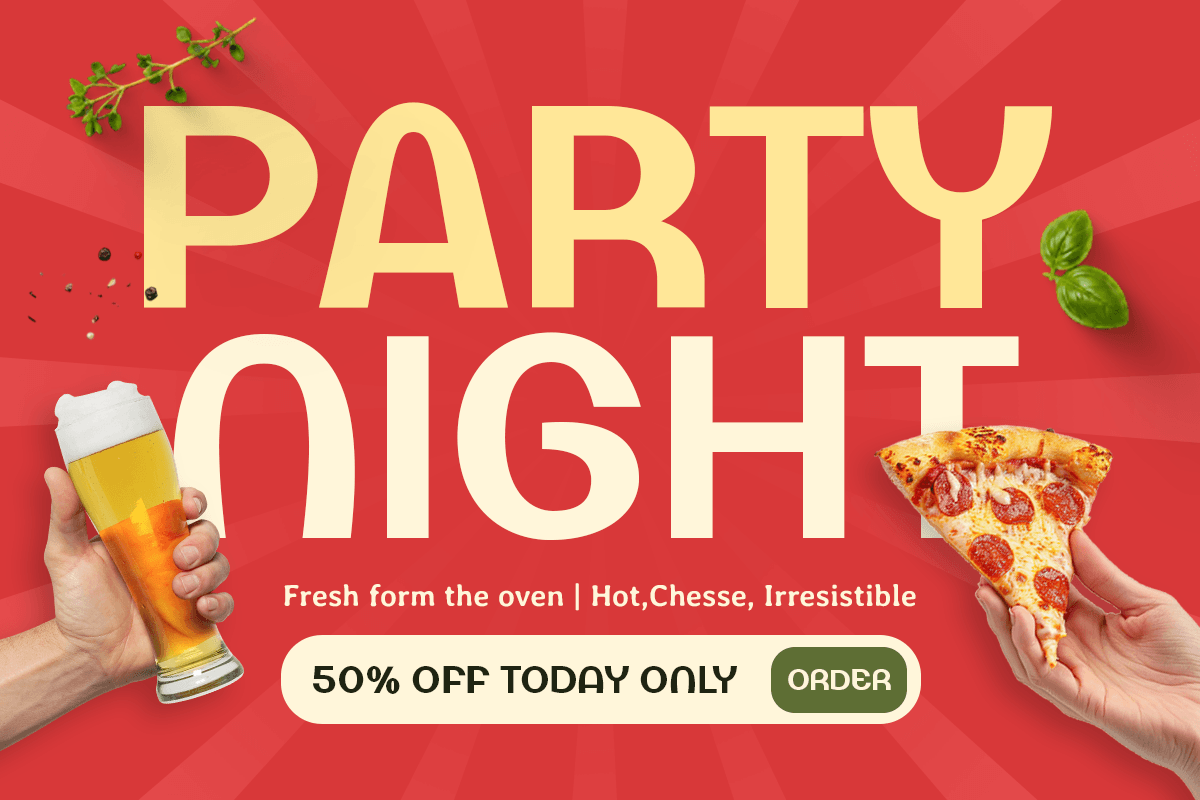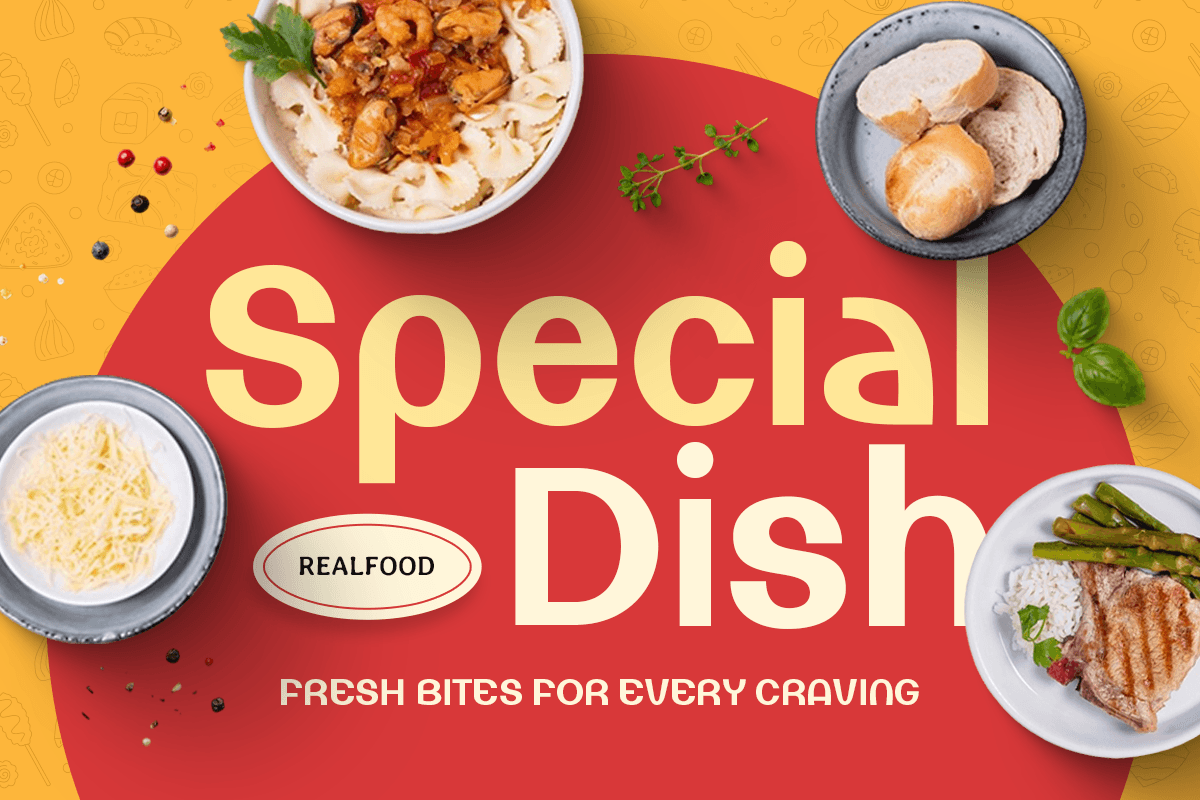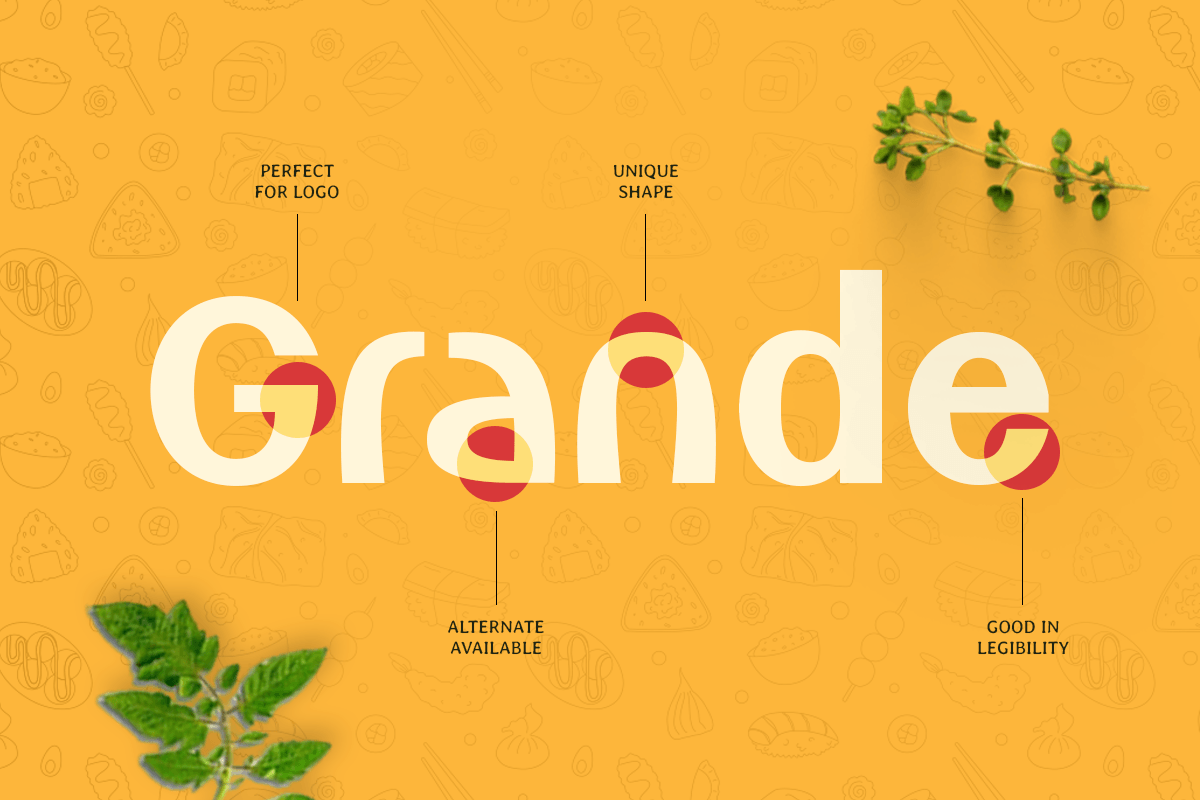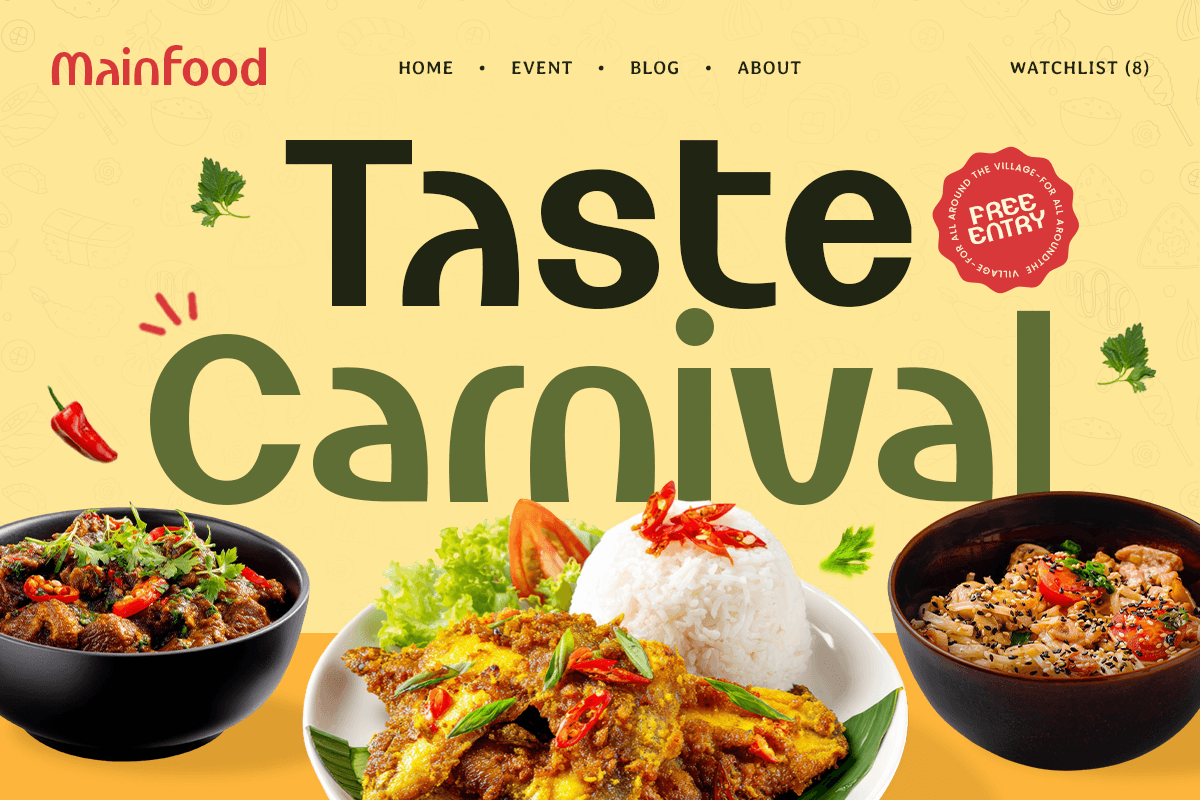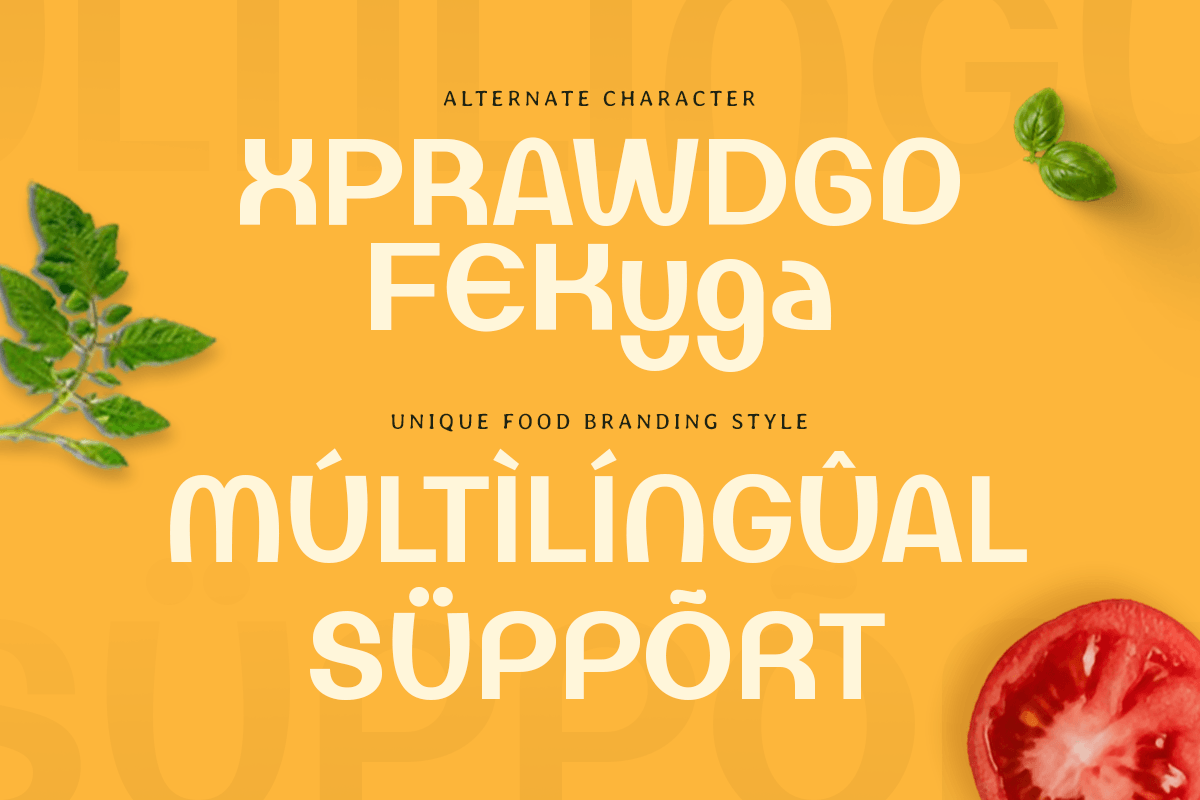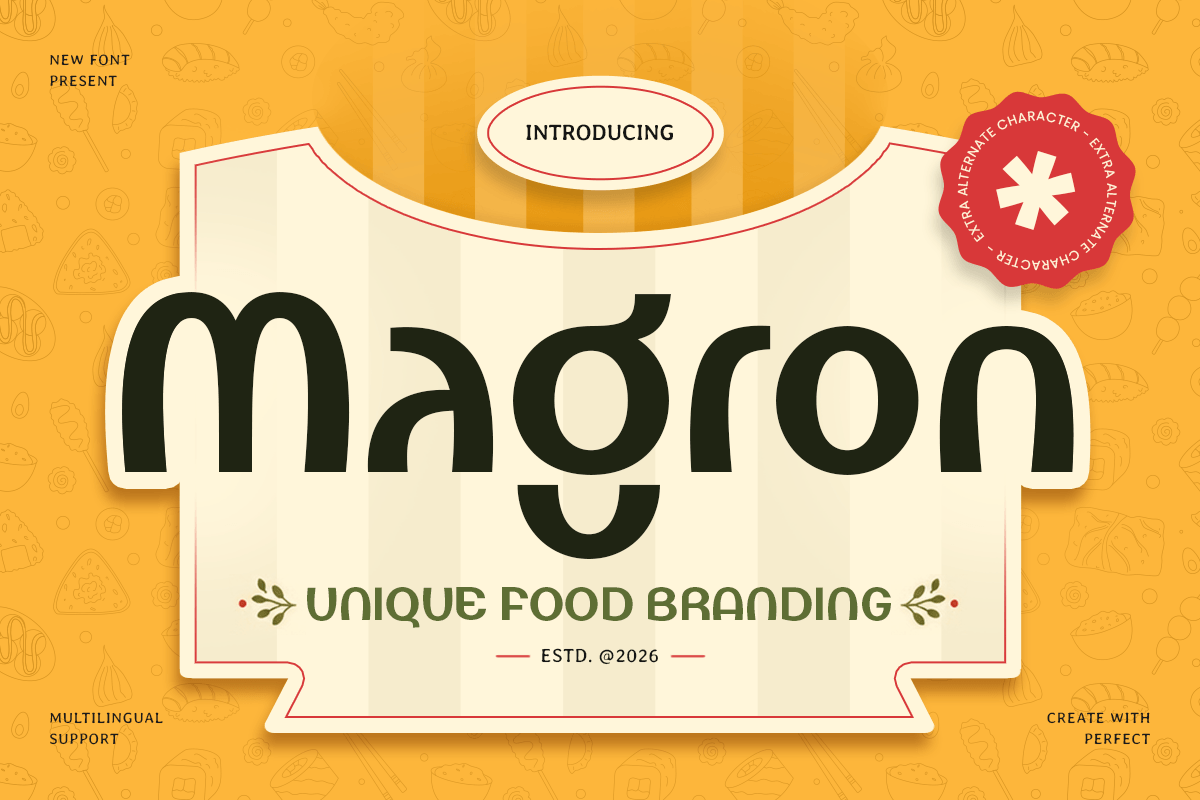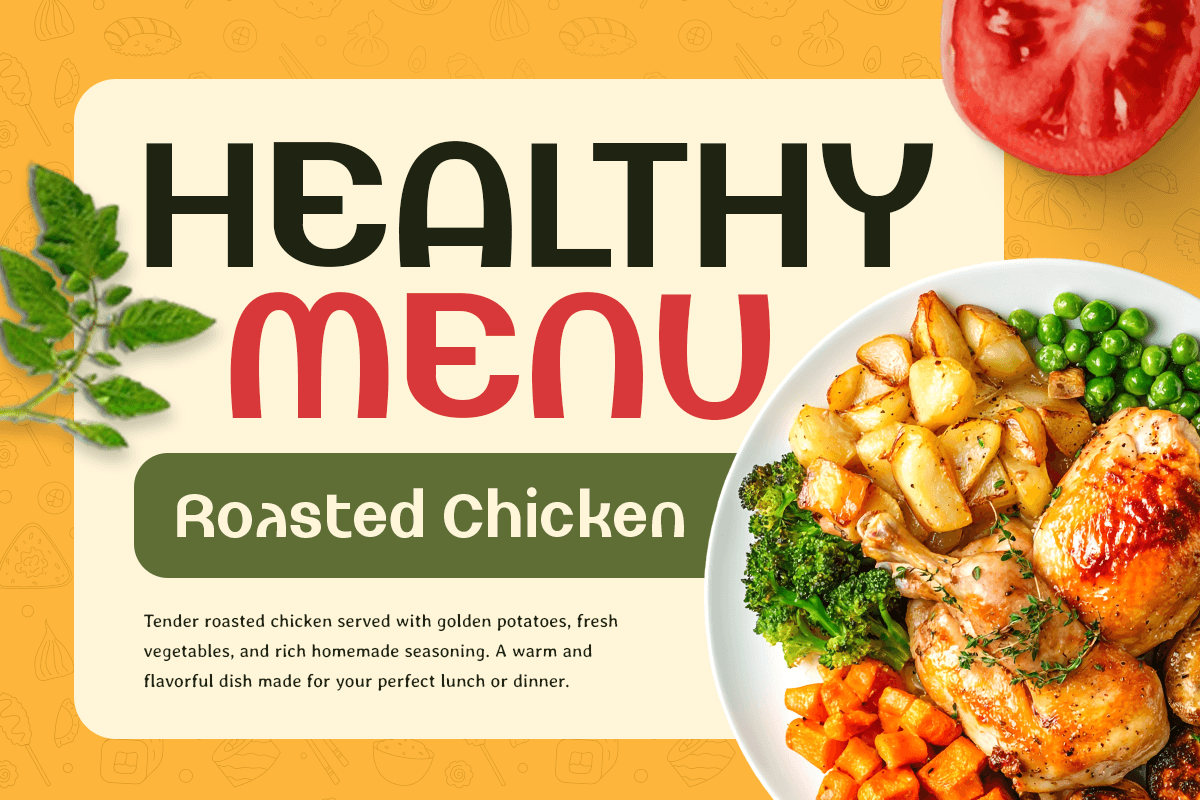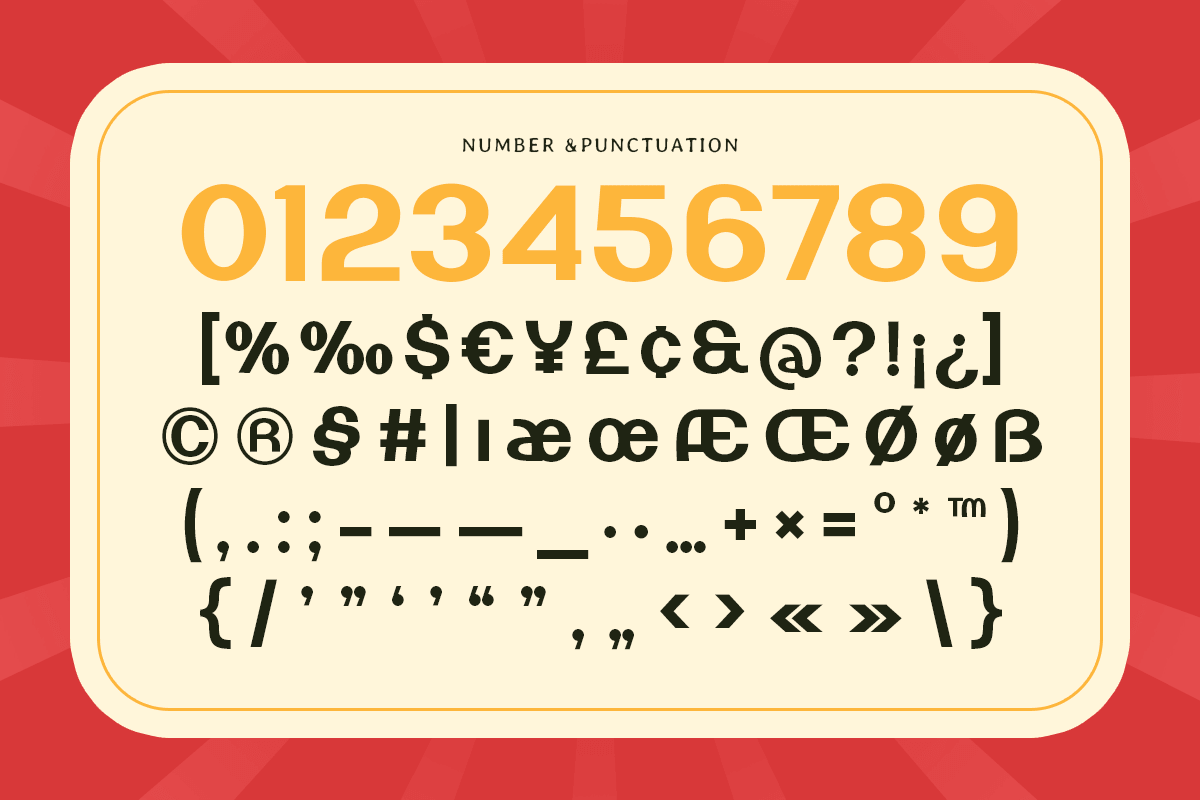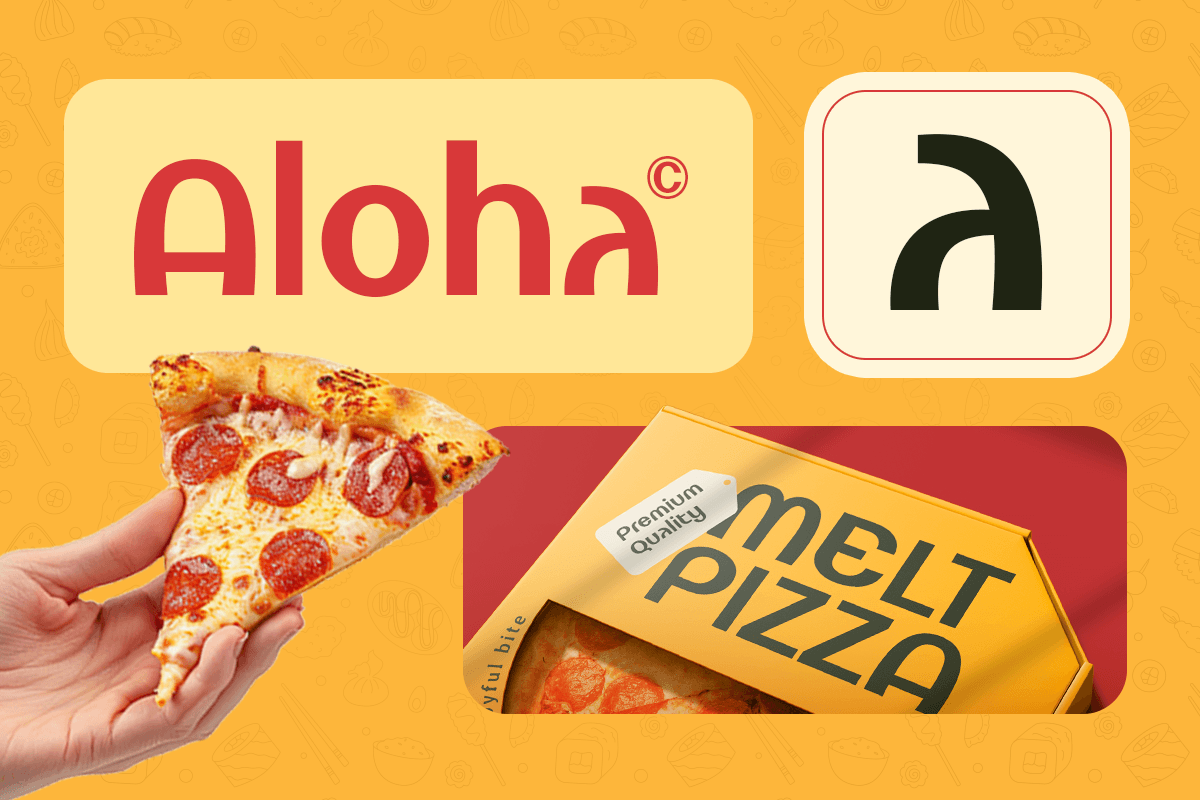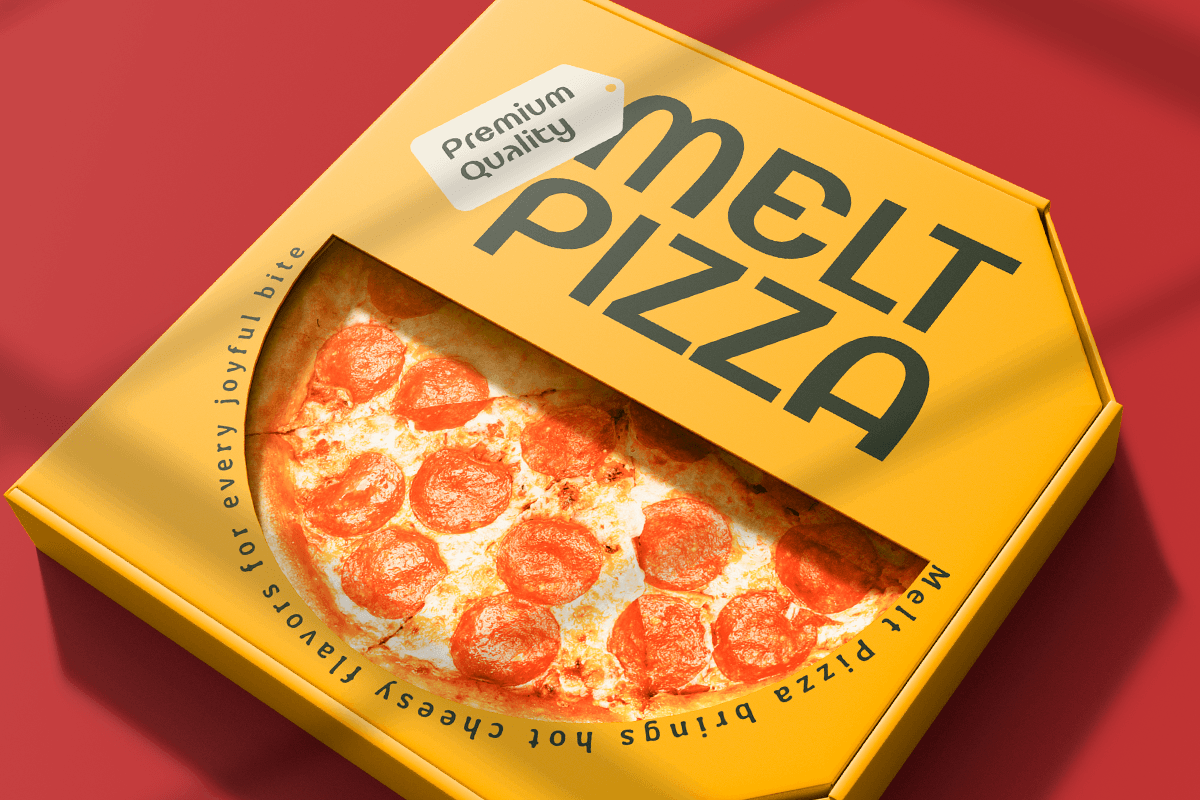
Magron - Unique Food Branding Font
Magron is a unique food branding font crafted to bring flavor, personality, and visual appeal to your culinary projects. With its distinctive character shapes and inviting style, this typeface is perfect for restaurant identities, food packaging, menu designs, café branding, and promotional campaigns.
Designed to capture attention while remaining highly readable, Magron helps create memorable food-related visuals that feel both professional and approachable. Its bold presence and creative structure make it ideal for fast food brands, snack packaging, beverage labels, bakeries, and modern dining concepts.
Whether you're building a restaurant logo, designing a menu board, or creating social media content for food businesses, Magron adds warmth, energy, and uniqueness to every composition.
Magron – Unique Food Branding Font Features
Unique display font designed for food and restaurant branding
Perfect for packaging, menus, logos, and promotional materials
Friendly and eye-catching letterforms with strong visual appeal
Great for cafés, bakeries, food trucks, and beverage brands
Uppercase, lowercase, numerals, and punctuation included
OpenType features for enhanced creative flexibility
Make your food branding unforgettable with Magron – the ultimate font for delicious, creative, and visually appetizing design. 🍔✨